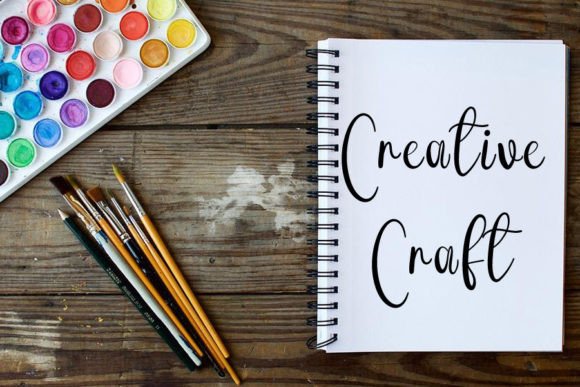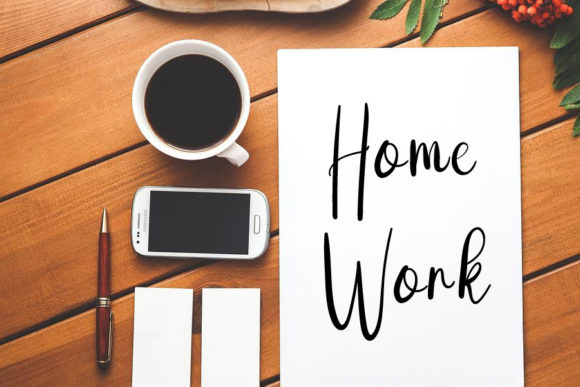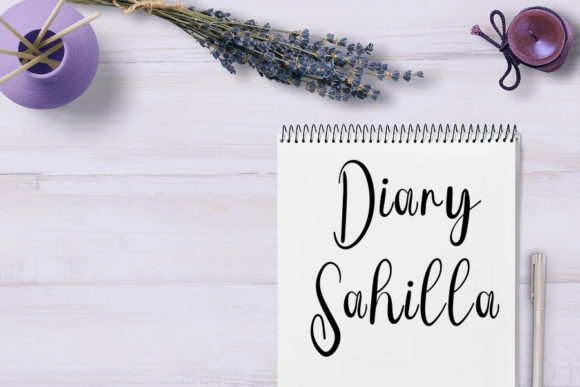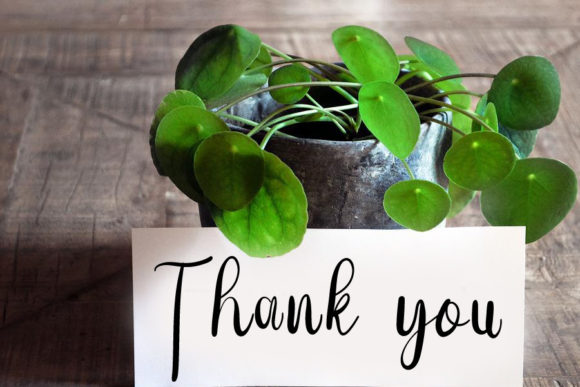
Introducing Bright Font: Elevate Your Designs with Fresh and Beautiful Typography
In the world of design, typography plays a crucial role in capturing the essence of a brand or creative project. A well-chosen font can make all the difference in conveying a message, evoking emotions, and establishing a visual identity. If you’re a designer, crafter, or business owner looking for a font that can elevate your designs, look no further than Bright Font. This fresh and beautiful font is perfect for a variety of design purposes, from YouTube banners and cover logo mockups to wedding invitations, ID cards, flyers, and crafts.
What Makes Bright Font Stand Out?
Bright Font is a simple yet unique font that is designed to help your business progress and develop. Its clean and elegant lines make it an excellent choice for designers who want to add a touch of sophistication to their work. Whether you’re creating a visual identity for a brand, designing a wedding invitation, or crafting a flyer, Bright Font is the perfect choice. Its versatility and legibility make it easy to use in various design contexts, ensuring that your message is conveyed clearly and effectively.
Design Possibilities with Bright Font
The possibilities are endless when it comes to using Bright Font in your designs. Here are a few ideas to get you started:
- YouTube Banners: Create eye-catching YouTube banners that showcase your brand’s personality and style.
- Cover Logo Mockups: Design stunning cover logo mockups that help your brand stand out on social media.
- Wedding Invitations: Add a touch of elegance to your wedding invitations with Bright Font’s beautiful and sophisticated typography.
- ID Cards: Create professional-looking ID cards that are perfect for businesses, events, or conferences.
- Flyers: Design attention-grabbing flyers that promote your business, event, or cause.
- Crafts: Use Bright Font to add a personal touch to your crafts, such as handmade cards, gift tags, or scrapbooking projects.
Why Choose Bright Font?
So, why should you choose Bright Font for your design projects? Here are a few compelling reasons:
- Unique and Simple: Bright Font is a one-of-a-kind font that is both simple and unique, making it perfect for designers who want to add a touch of personality to their work.
- Fresh and Beautiful: This font is designed to be fresh and beautiful, ensuring that your designs stand out from the crowd.
- Versatile: Bright Font is versatile and can be used in various design contexts, from digital designs to print materials.
- Elegant: The font’s clean and elegant lines make it perfect for designers who want to add a touch of sophistication to their work.
In conclusion, Bright Font is an excellent choice for designers, crafters, and business owners who want to elevate their designs with fresh and beautiful typography. Its simplicity, uniqueness, and versatility make it perfect for a variety of design purposes, from YouTube banners and cover logo mockups to wedding invitations, ID cards, flyers, and crafts. By using Bright Font, you can add a touch of elegance and sophistication to your designs, ensuring that your message is conveyed clearly and effectively. So, why wait? Download Bright Font today and take your designs to the next level!